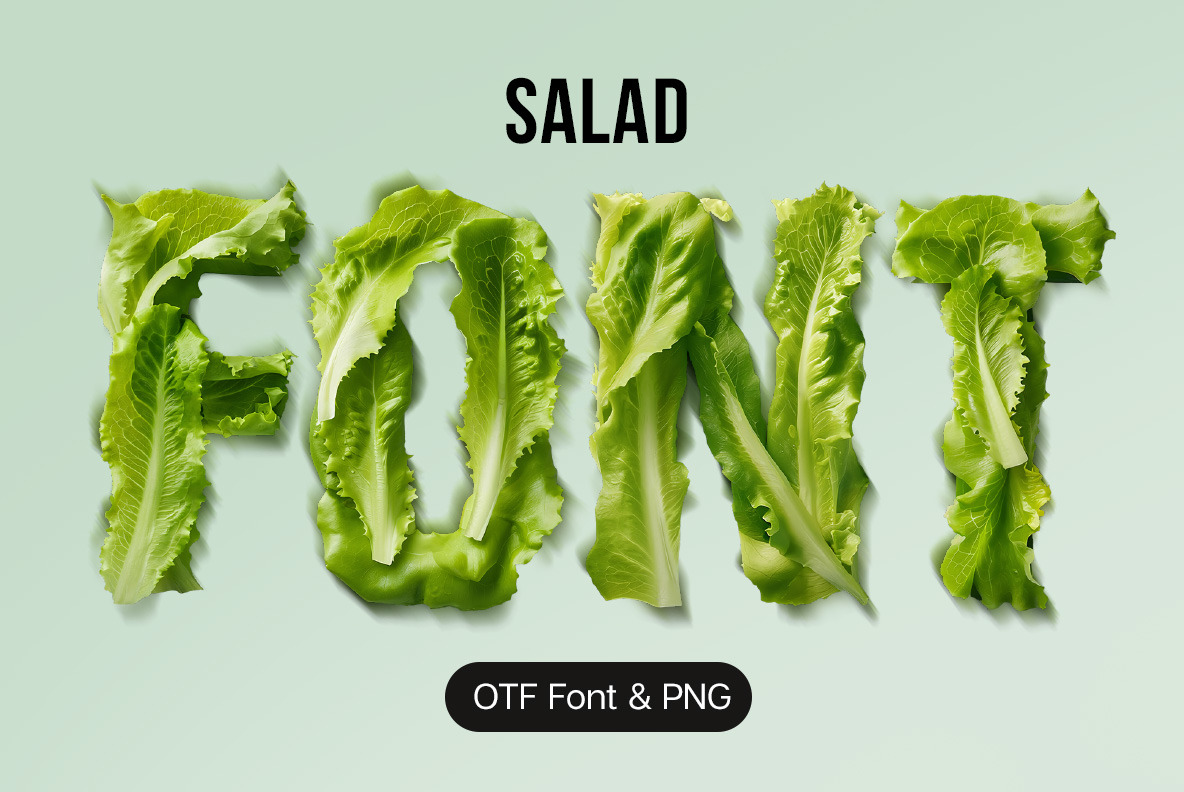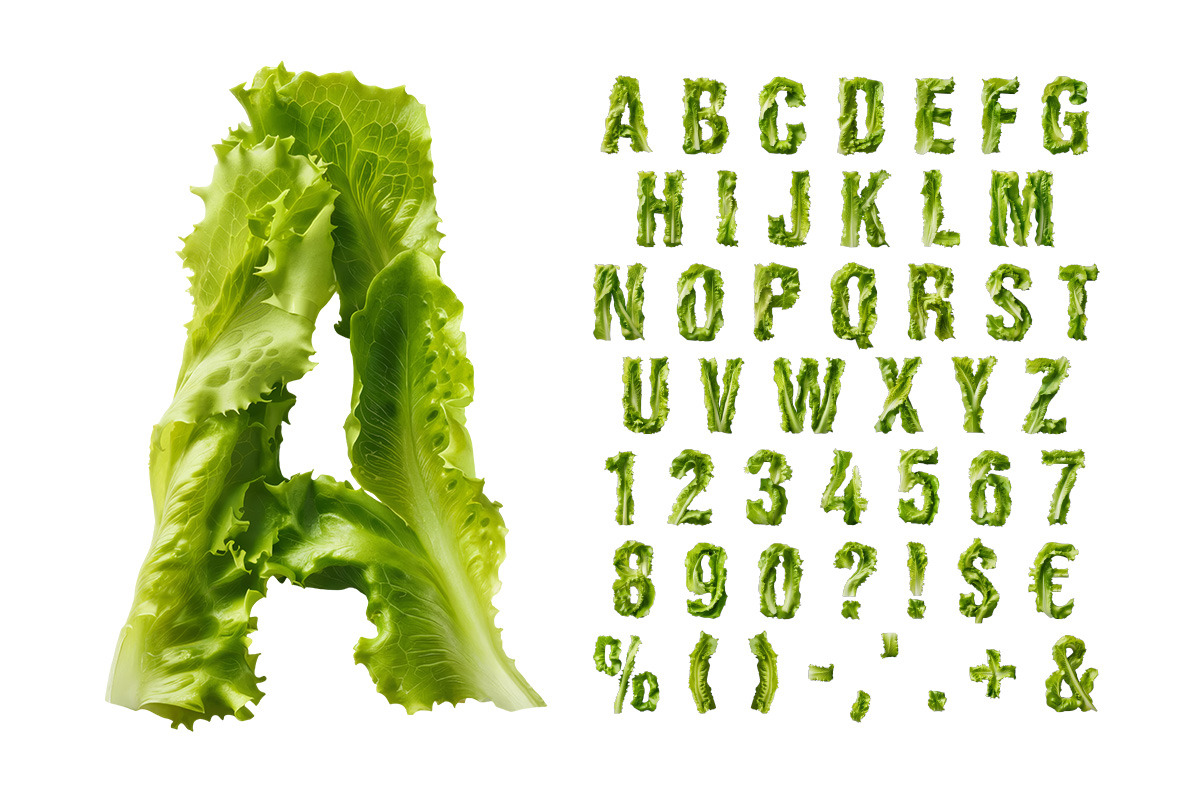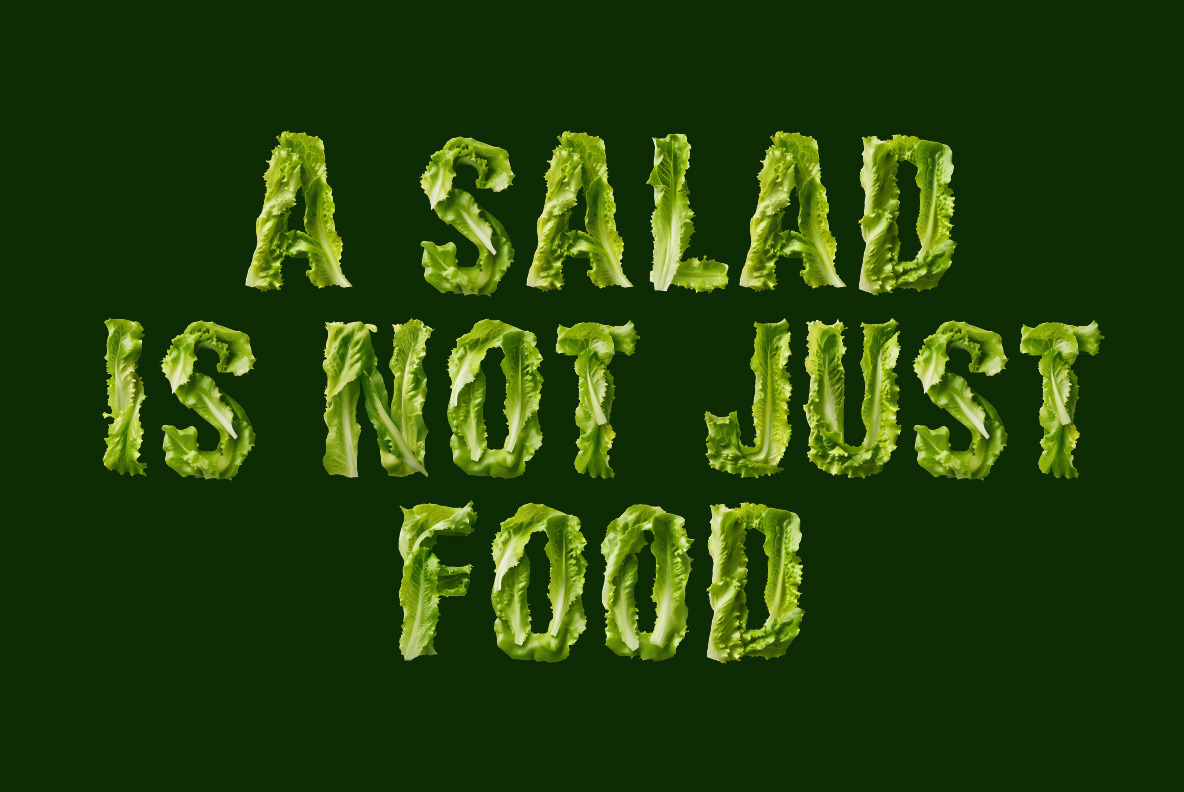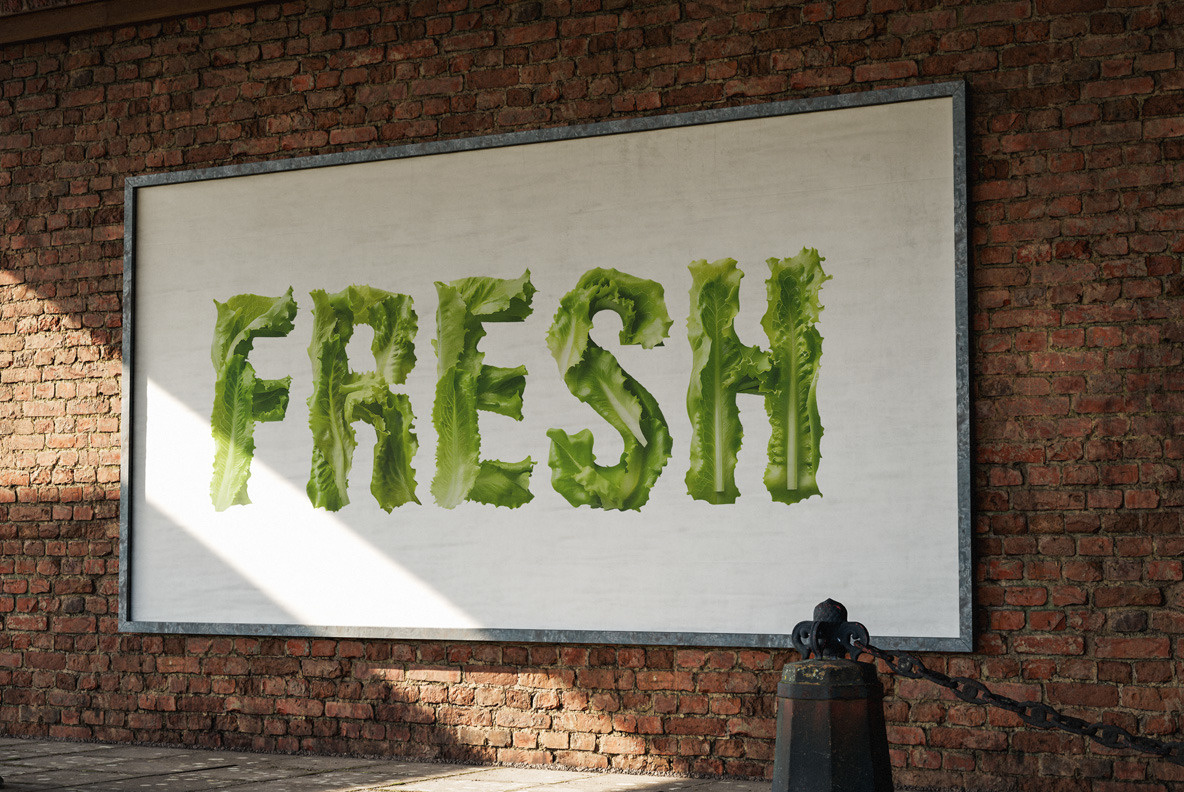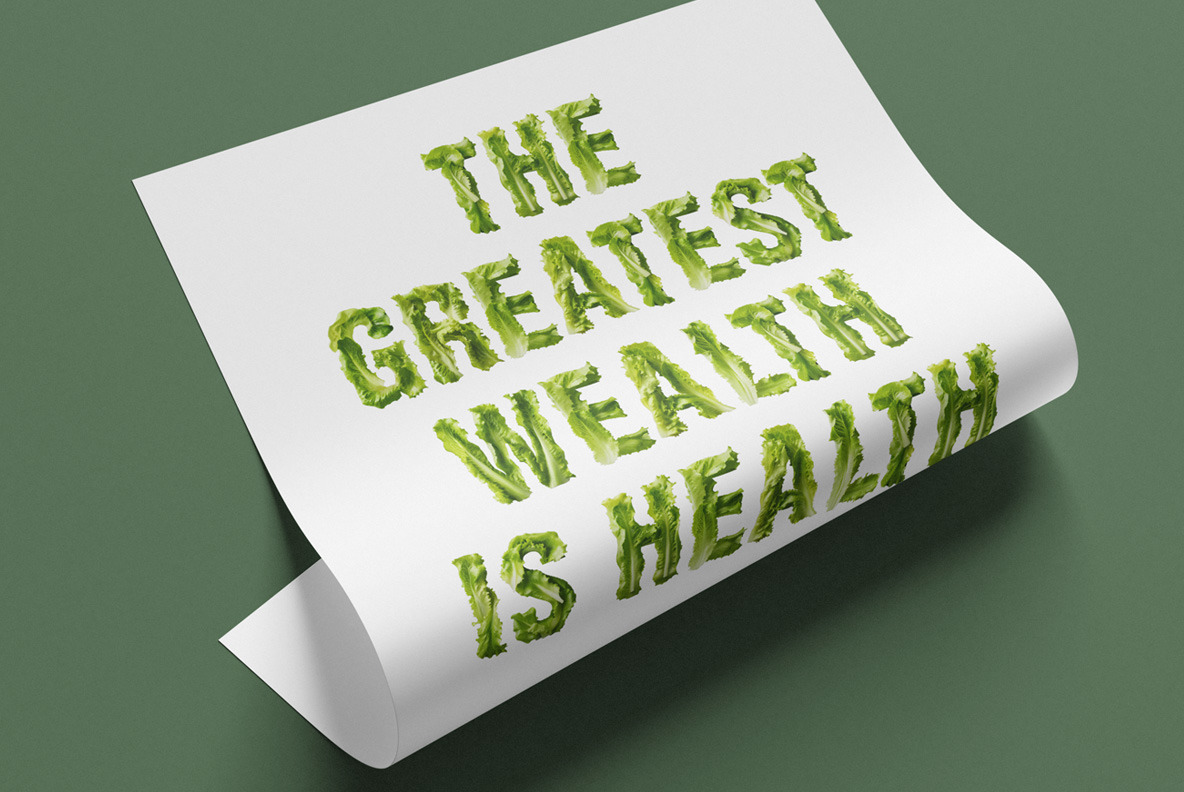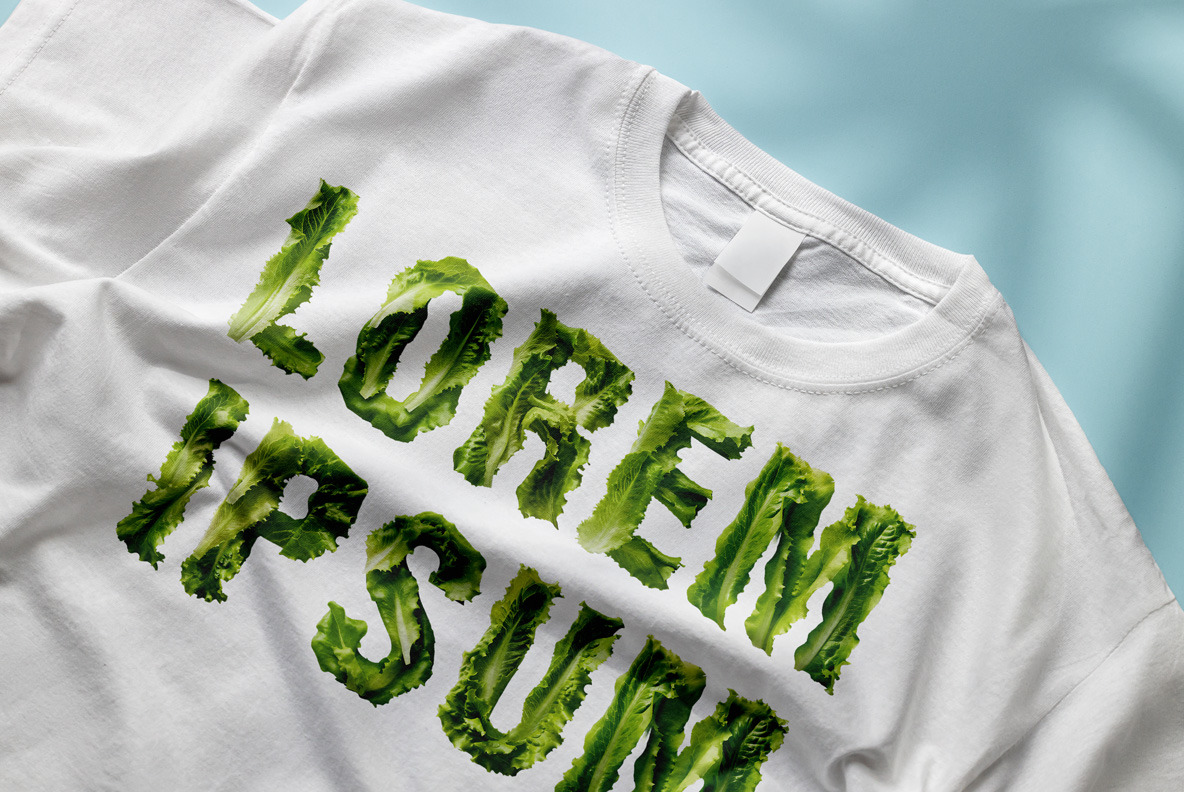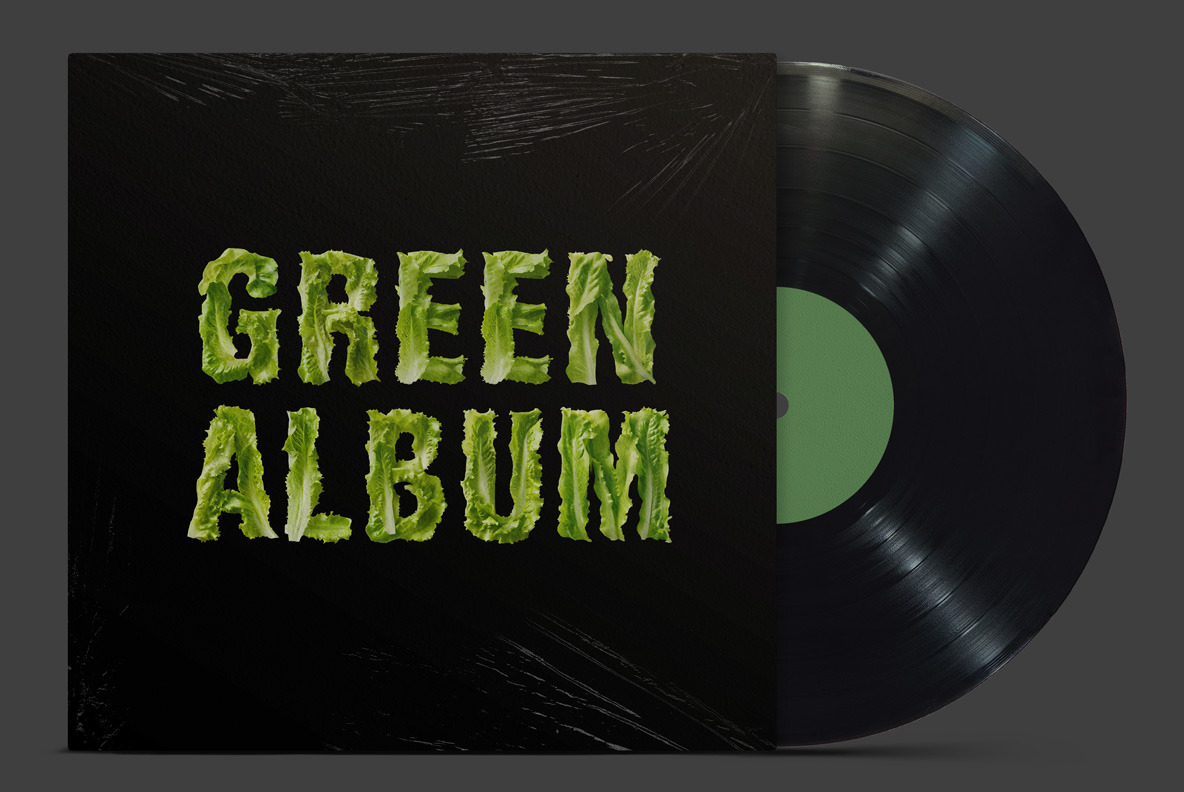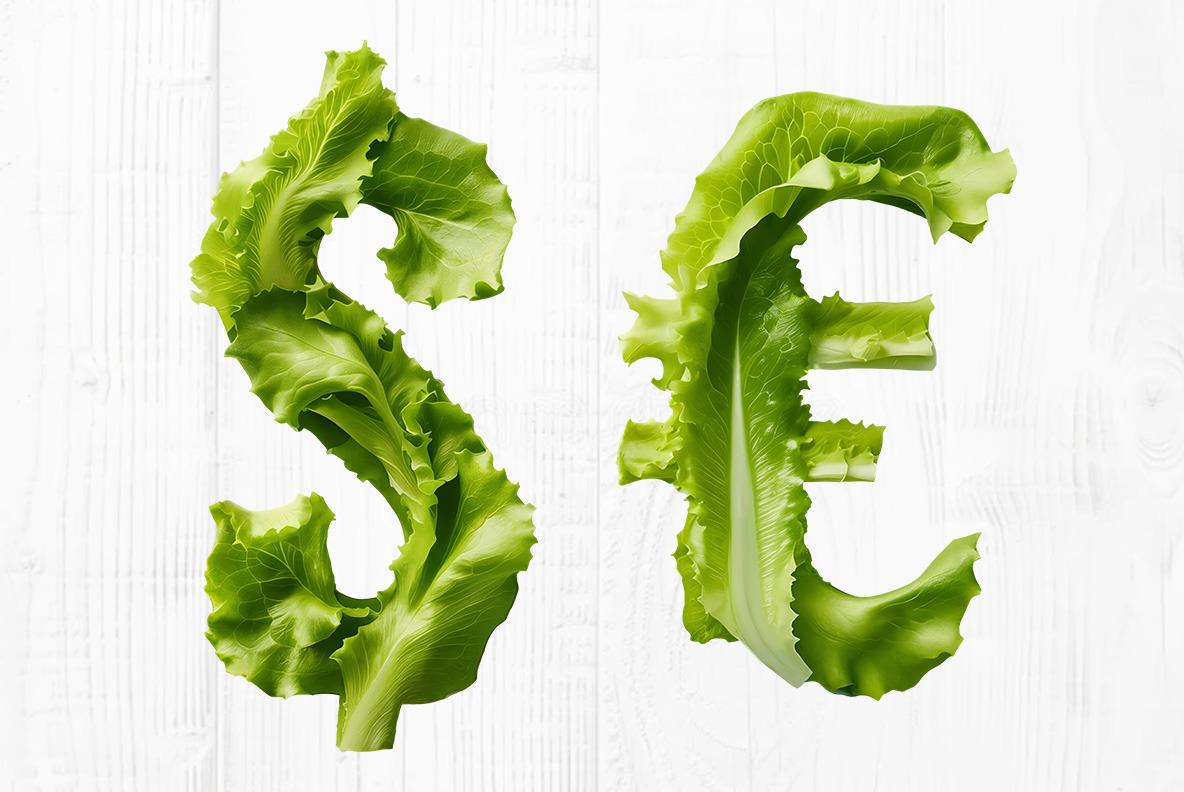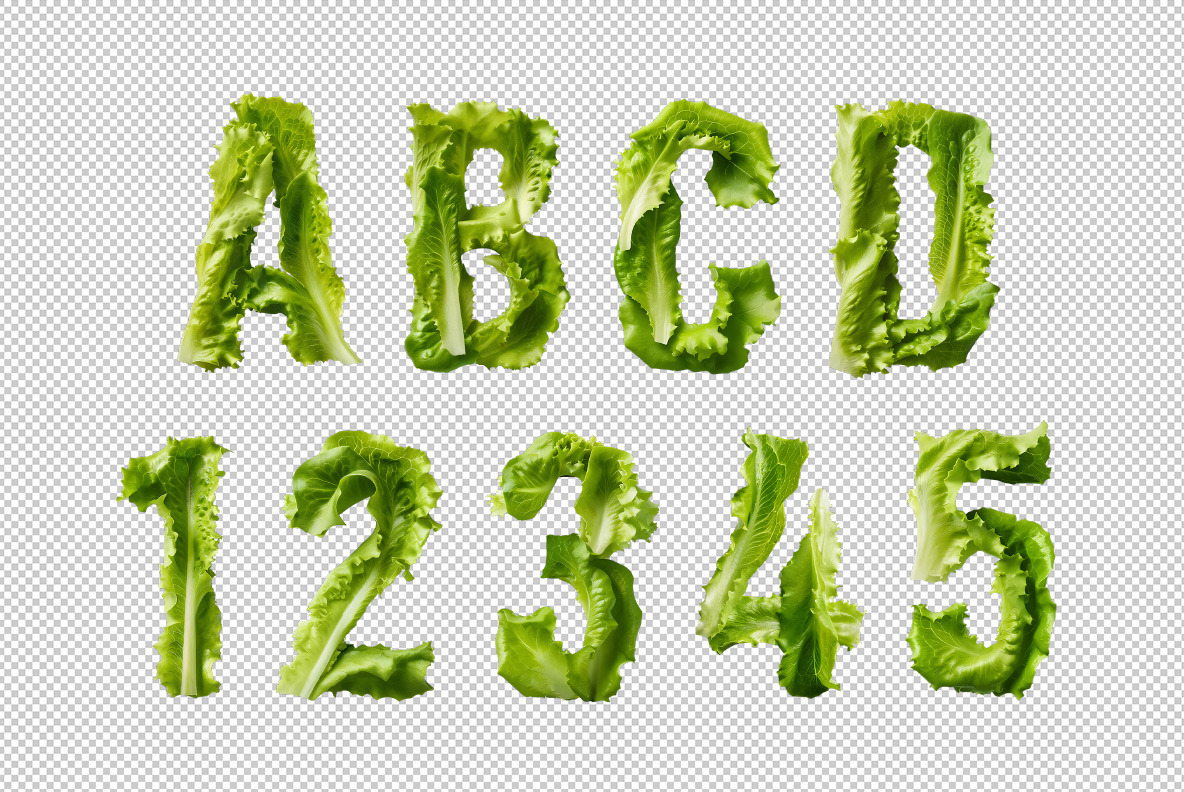
Salad Font
Diet. It’s the four-letter word that haunts me every time I look at a menu. And now, apparently, it haunts my fonts too. Enter the Salad Font. Yes, each letter made entirely of—wait for it—green salad leaves. So now, not only am I supposed to eat healthier, but even my typography is trying to guilt-trip me into consuming more greens. This font, though, it’s clever, creative even. The way the leaves curl into perfect letters—almost like the alphabet went vegan overnight. It’s high-definition OpenType, so naturally, it’ll only appear in software that’s on a salad cleanse.
Salad Font. A high definition OpenType Font. Contains uppercase characters, numerals and basic punctuation. (Draw height roughly 800 pixels). All letters and glyphs that comprises this font you can see on the preview.